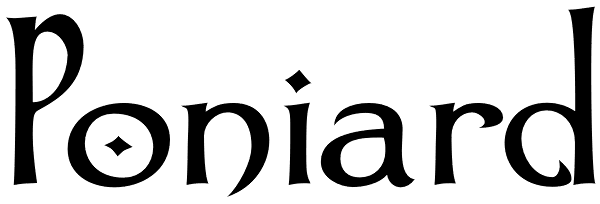
Poniard
Cutlass was just for fun. Poniard is the working version. Sleek, slender, sharp, to the point! A bit of decorative fun. This is the first font used in teaching Fontographer in my new Practical Font Design Book. I thought I better release it for...